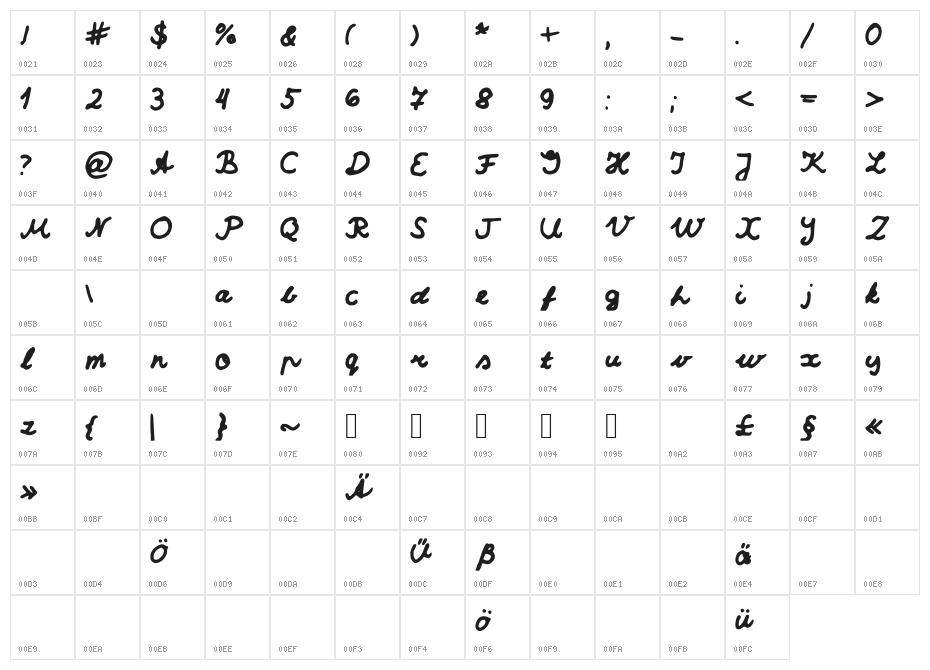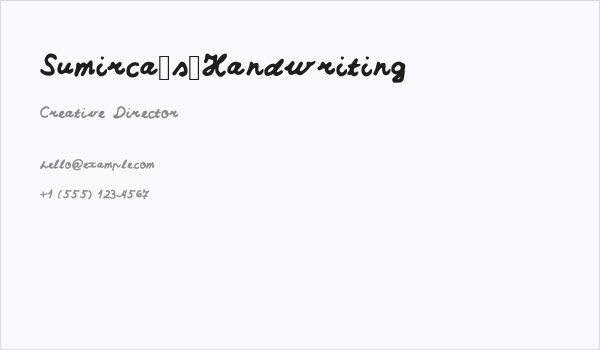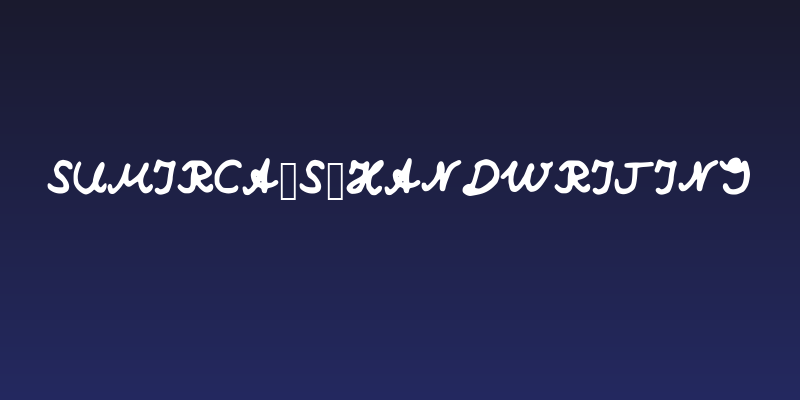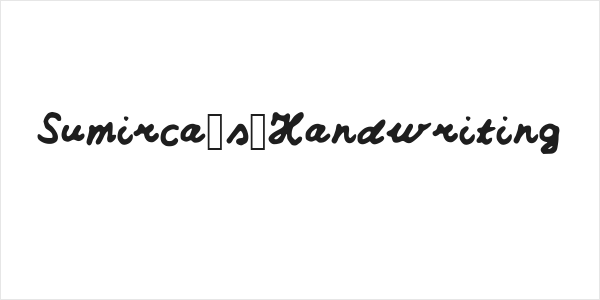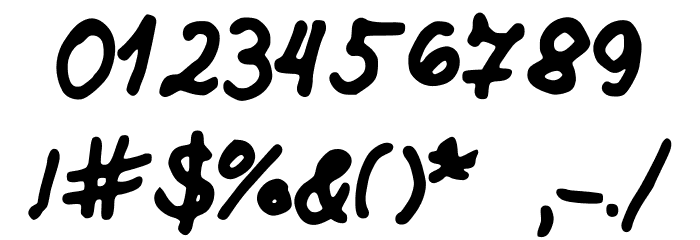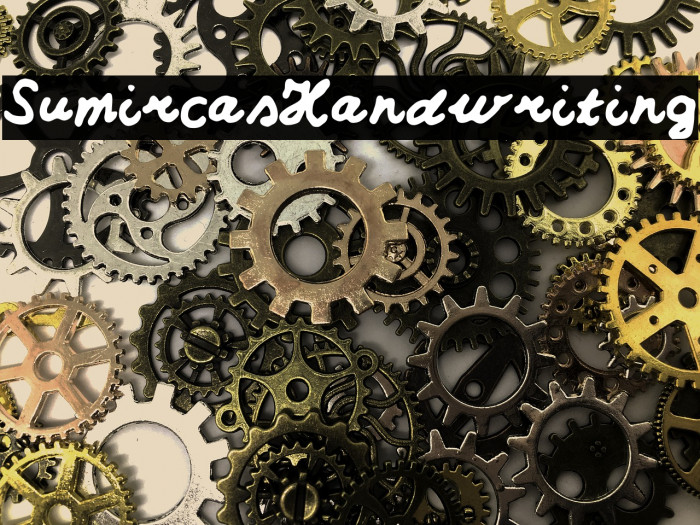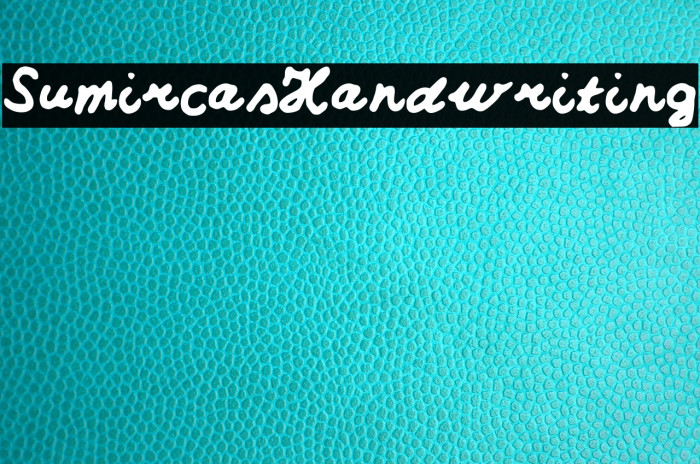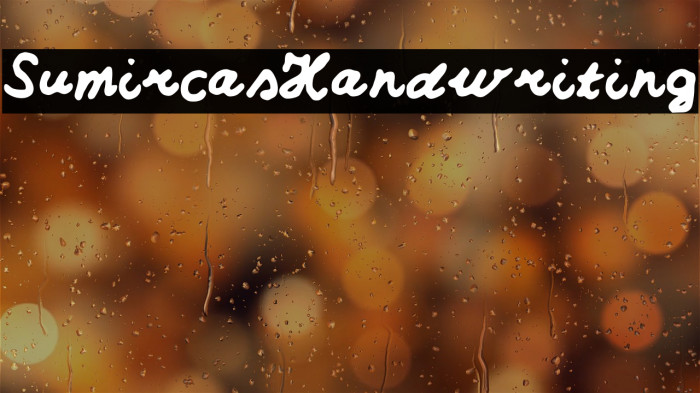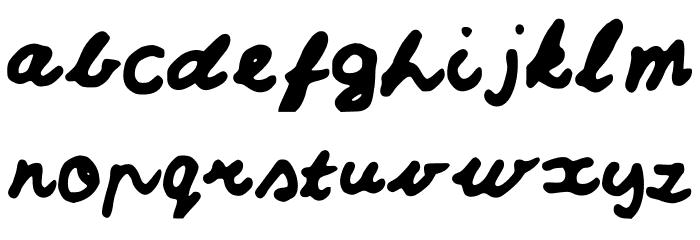
Sumirca_s_Handwriting Font
Sumirca_s_Handwriting Description
This font features a playful and casual handwritten style, characterized by its bold and slightly irregular strokes. The letters are connected in a fluid manner, giving it a natural and spontaneous appearance. The uppercase letters maintain a consistent height, while the lowercase letters vary slightly in size, adding to the informal charm. The numbers and special characters are crafted with the same boldness, ensuring a cohesive look across all elements. The overall design is reminiscent of personal handwriting, making it ideal for projects that require a personal touch.
| Use Case | Logos, Headlines, Informal Invitations |
| Proposed Projects | Ideal for greeting cards, personal notes, informal invitations, and creative projects that require a personal touch. |